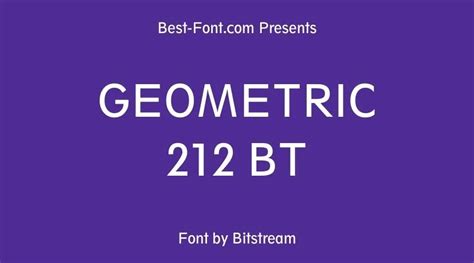
What is Geometric 212 BT Font?
Geometric 212 BT font is a typeface that belongs to the geometric sans-serif family. This font is characterized by its clean lines, precise geometric shapes, and overall modern appearance. Designed with legibility and versatility in mind, Geometric 212 BT is a popular choice for a wide array of design projects. Its clarity makes it suitable for both headlines and body text , ensuring readability across different mediums, whether it’s print or digital. The font’s neutral yet stylish demeanor makes it a favorite among designers aiming for a contemporary and minimalist aesthetic. Its geometric construction lends a structured and organized feel to any design, making it an excellent choice for corporate branding, editorial layouts, and web design. Geometric 212 BT offers a balance between functionality and visual appeal, which is why it remains a go-to option for professionals seeking a reliable and aesthetically pleasing typeface. It’s worth noting that different weights and styles within the Geometric 212 BT family provide even more flexibility, allowing designers to create a cohesive and visually engaging typographic hierarchy within their projects. Ultimately, the font’s enduring popularity stems from its ability to seamlessly blend into various design contexts while maintaining a distinct and recognizable identity.
Key Characteristics of Geometric 212 BT
Let’s break down what makes Geometric 212 BT so special. First off, you’ll notice its clean lines and geometric shapes . This isn’t your grandpa’s fancy serif font; it’s modern, sleek, and to the point. The consistent stroke weight gives it a uniform appearance, ensuring readability across different sizes. Geometric 212 BT is also highly versatile. Whether you’re designing a website, creating a logo, or laying out a magazine, this font can adapt to fit your needs. It works equally well for headlines and body text, making it a reliable choice for all your typographic needs. Plus, the font family often includes different weights (like light, regular, and bold) and styles (like italic), giving you even more flexibility in your designs. The x-height (the height of the lowercase ‘x’) is relatively high, which further enhances readability, especially in digital environments. In summary, Geometric 212 BT combines form and function, making it a standout choice for designers who value clarity and contemporary aesthetics. Its geometric precision ensures visual harmony, while its versatility allows it to shine in diverse applications, truly making it a staple in any designer’s toolkit.
Ideal Uses for Geometric 212 BT Font
So, where does Geometric 212 BT really shine? Well, it’s incredibly versatile! Think corporate branding : its clean and professional look makes it perfect for logos, business cards, and letterheads. If you’re working on web design , this font is a great choice for headings, body text, and navigation menus. Its legibility ensures a smooth user experience. In the world of editorial design , Geometric 212 BT can bring a modern touch to magazines, books, and newspapers. Use it for titles, subtitles, and even pull quotes to create a visually appealing layout. Don’t forget marketing materials ! Flyers, brochures, and posters can all benefit from the font’s clean and eye-catching design. It helps convey information clearly and effectively. Moreover, its geometric precision makes it suitable for infographics and data visualizations, ensuring that your message is not only informative but also aesthetically pleasing. Whether you’re crafting a minimalist website or a sophisticated print campaign, Geometric 212 BT is a reliable choice. Its ability to adapt to various design contexts makes it a valuable asset for any creative project, ensuring that your text looks polished and professional across all platforms.
Tips for Using Geometric 212 BT Effectively
Now that you’ve got Geometric 212 BT installed, let’s talk about using it effectively. Firstly, pair it wisely . While Geometric 212 BT is versatile, it looks best when paired with complementary fonts. Consider pairing it with a serif font for body text to create a balanced and readable design. For example, a classic serif like Times New Roman or a more modern option like Roboto Serif can work well. Secondly, choose the right weight . Geometric 212 BT typically comes in various weights, from light to bold. Use heavier weights for headings and lighter weights for body text to create a clear visual hierarchy. Thirdly, pay attention to spacing . Adjust the letter-spacing (tracking) and line-height (leading) to optimize readability. Geometric fonts often benefit from a bit more spacing to prevent them from feeling too cramped. Also, consider the context . Think about the overall tone and style of your design project. Geometric 212 BT is great for modern and minimalist designs, but it might not be the best choice for a vintage or ornate project. Last but not least, test it out . Before finalizing your design, test the font on different devices and screen sizes to ensure it looks good across all platforms. By following these tips, you can harness the full potential of Geometric 212 BT and create stunning designs that are both visually appealing and highly functional.